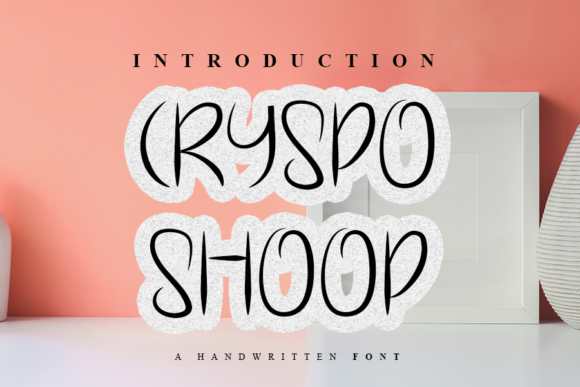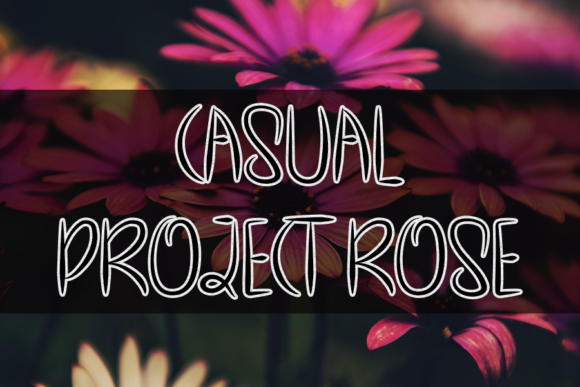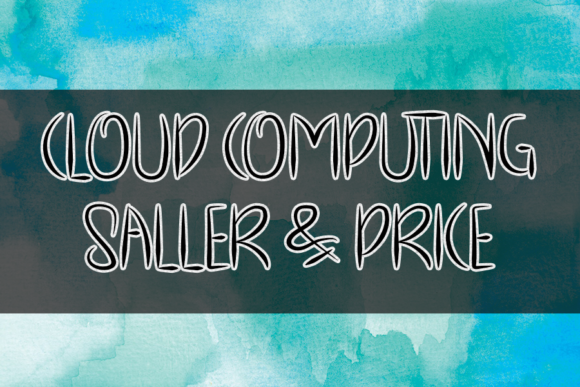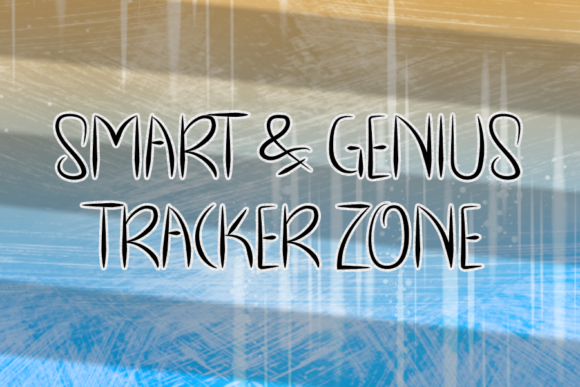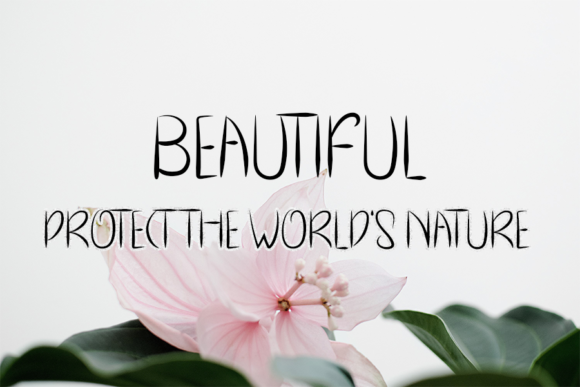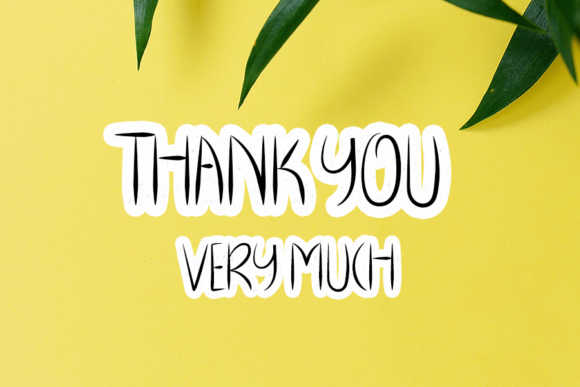
Cryspo Shoop Font
About Cryspo Shoop Font
Cryspo Shoop is a bouncy handwritten font. Whether you’re looking for fonts for Instagram or calligraphy scripts for DIY projects, Cryspo Shoop will turn any creative idea into a true piece of art!